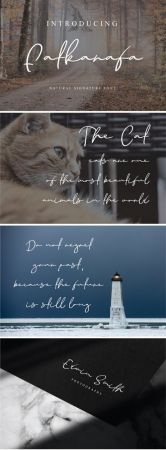
Fatkarafa is a polished and delightful script font. It is the best choice for creating eye catching logos, branding and quotes. Every letter has a unique and all round touch, which will make your design come alive!